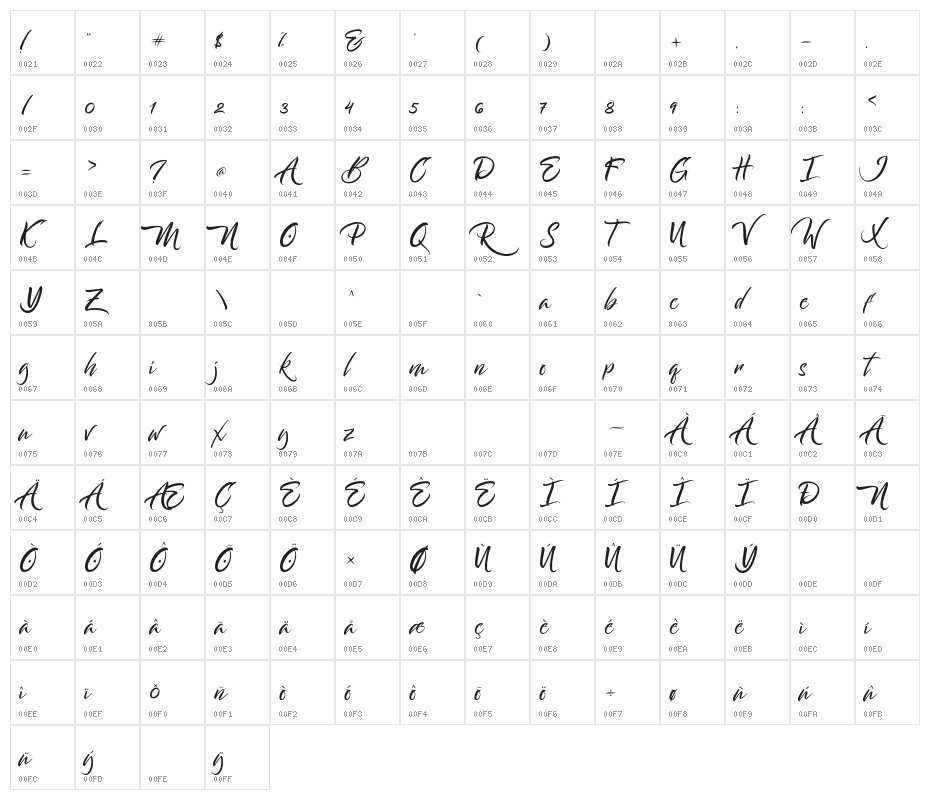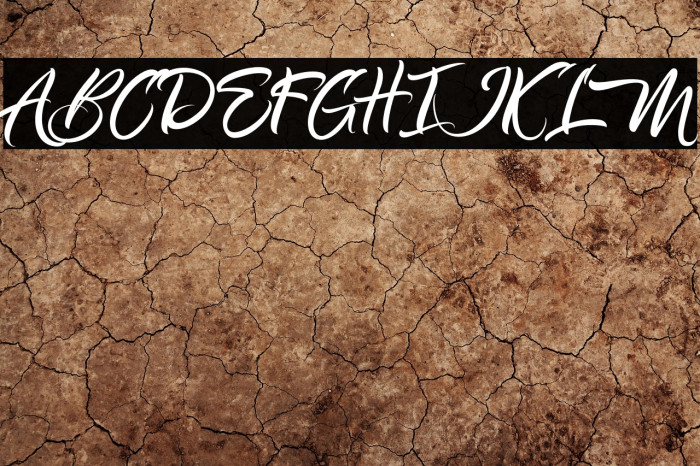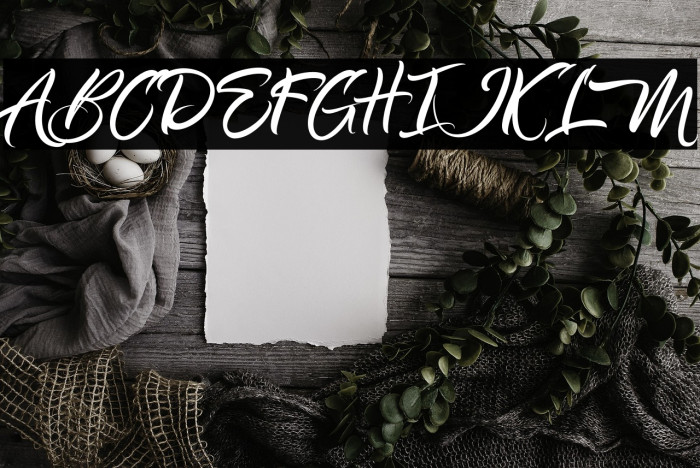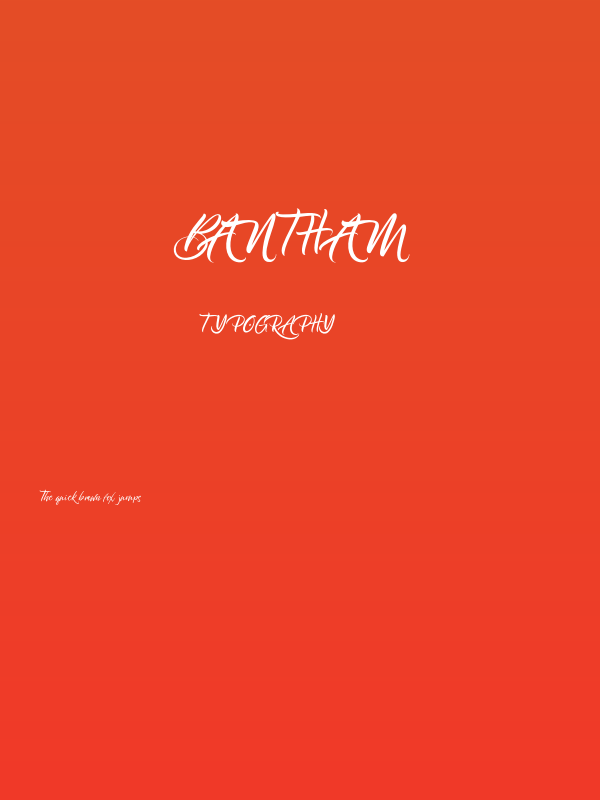
Bantham Font
Bantham Description
This font exudes a dynamic and expressive style, characterized by its fluid, cursive script that mimics the elegance of handwritten calligraphy. The strokes are bold and sweeping, with a natural flow that adds a sense of movement and grace. The uppercase letters are particularly ornate, featuring dramatic flourishes and loops, while the lowercase letters maintain a consistent rhythm and balance. The numerals and special characters are equally stylized, ensuring a cohesive look across all elements. This font is ideal for projects that require a personal touch or a sophisticated, artistic flair.